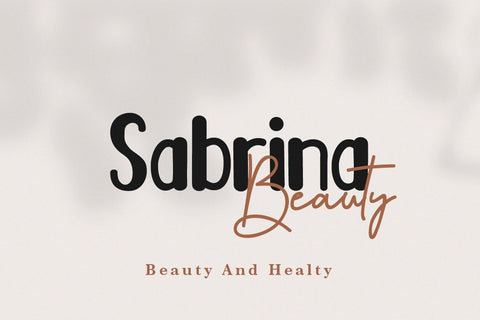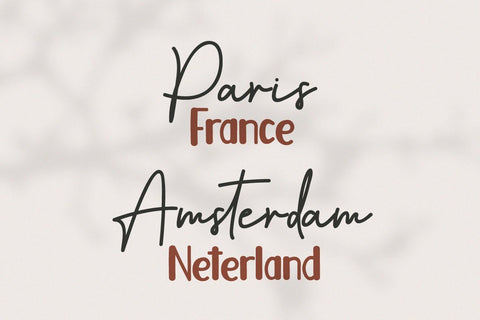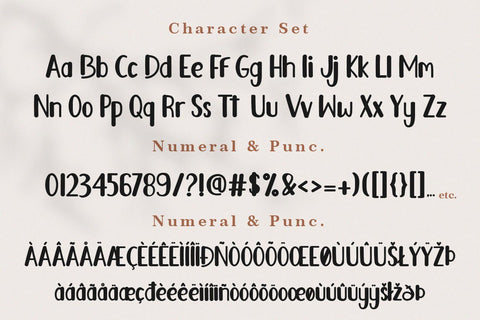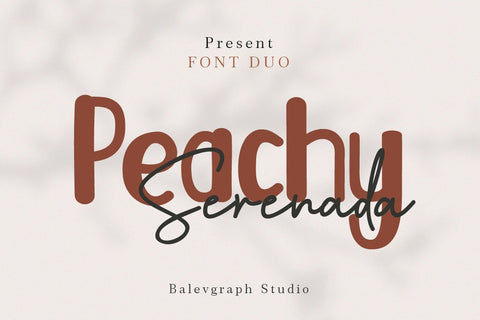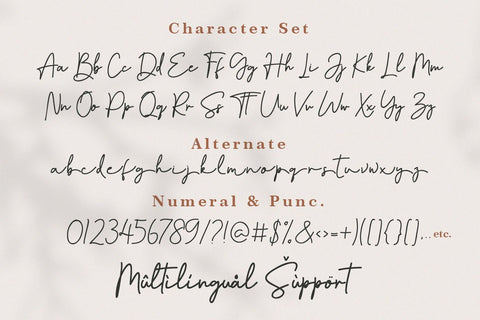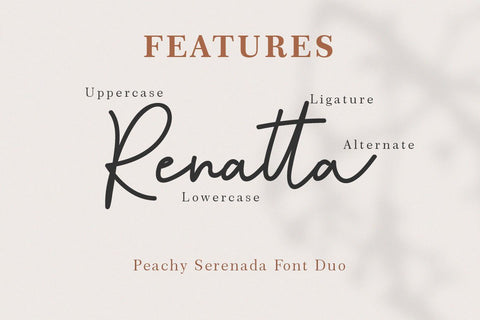
Peachy Serenada Font Duo
Peachy Serenada is a perfect duo font (sans serif and serif). Its beautifully carved characters and dual style make this typeface suitable for a wide pool of designs, including watermarks, logos, brand names, and more!
- - Uppercase, Lowercase, Numerals & Punctuations
- - Ligature & Alternate
- - Multilingual support